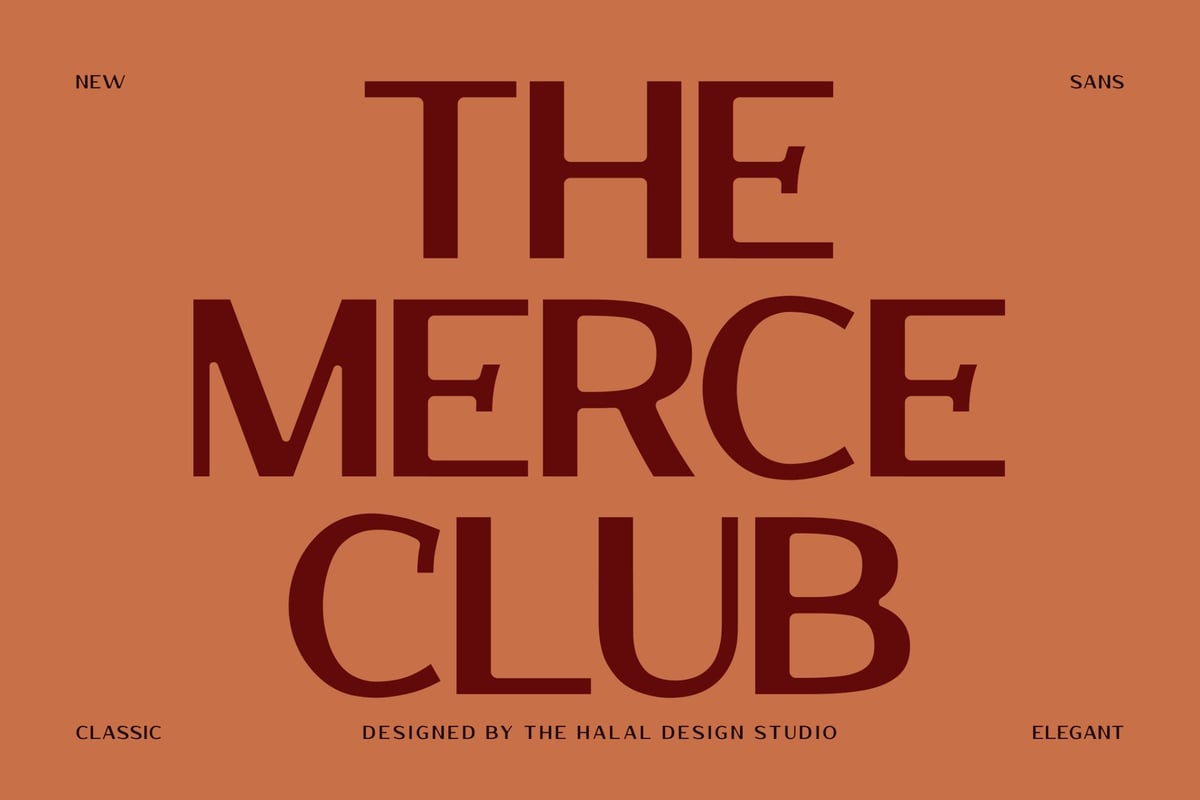
Merce Club - Elegant Sans Font
Bring timeless sophistication to your designs with Merce Club — a clean, elegant sans serif built for premium creative work.
Merce Club is a refined sans serif typeface crafted to deliver a polished, modern aesthetic across a wide range of creative projects. Its balanced proportions and minimalist letterforms strike the perfect balance between simplicity and luxury, making it equally at home in print and digital applications.
Ideal for luxury branding, editorial layouts, logos, packaging, fashion design, and lifestyle projects, this typeface carries a classic confidence that elevates any composition.
- Elegant sans serif style with clean, timeless letterforms
- Ligatures and alternates for enhanced typographic flexibility
- Multilingual support for a wide range of languages